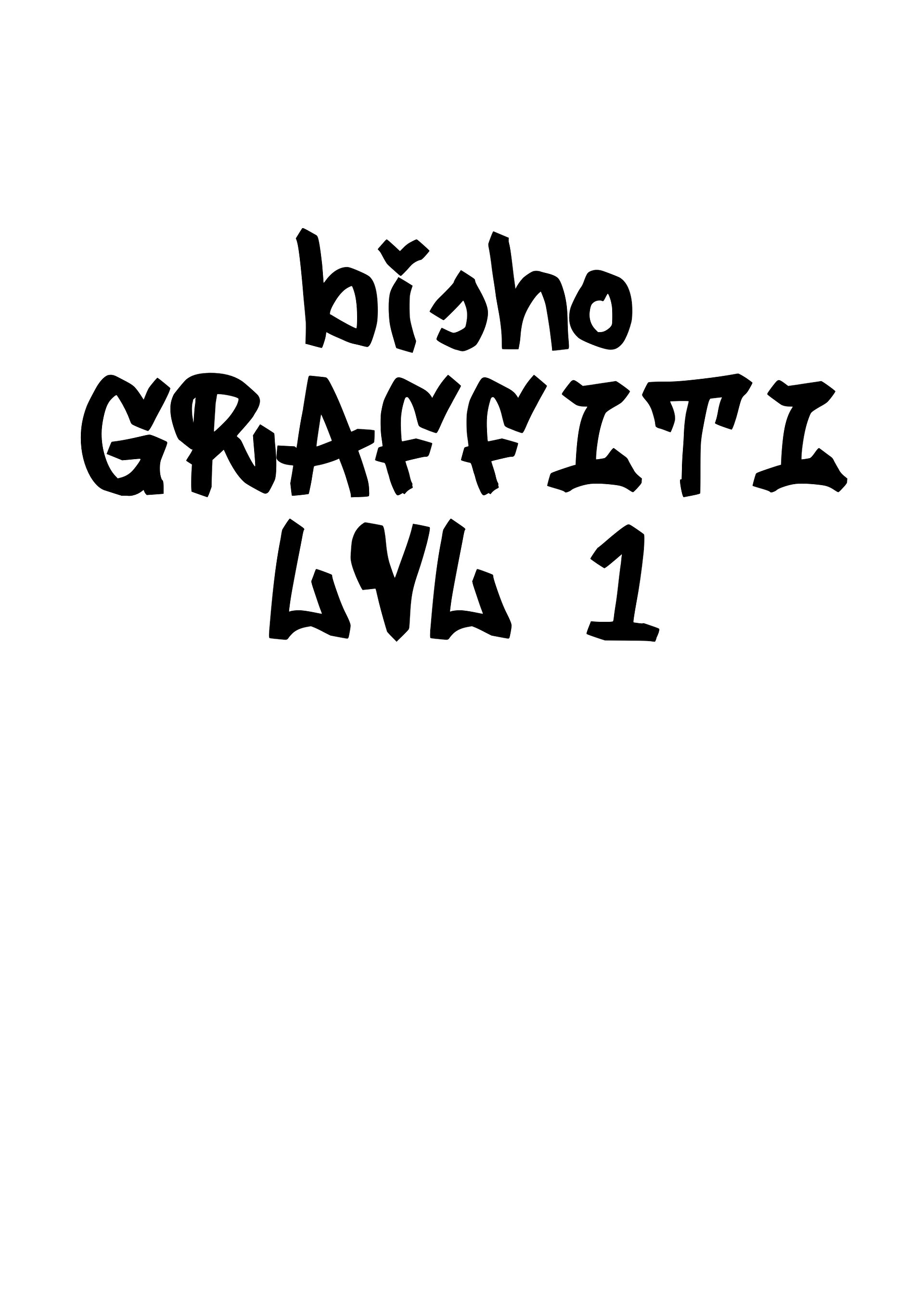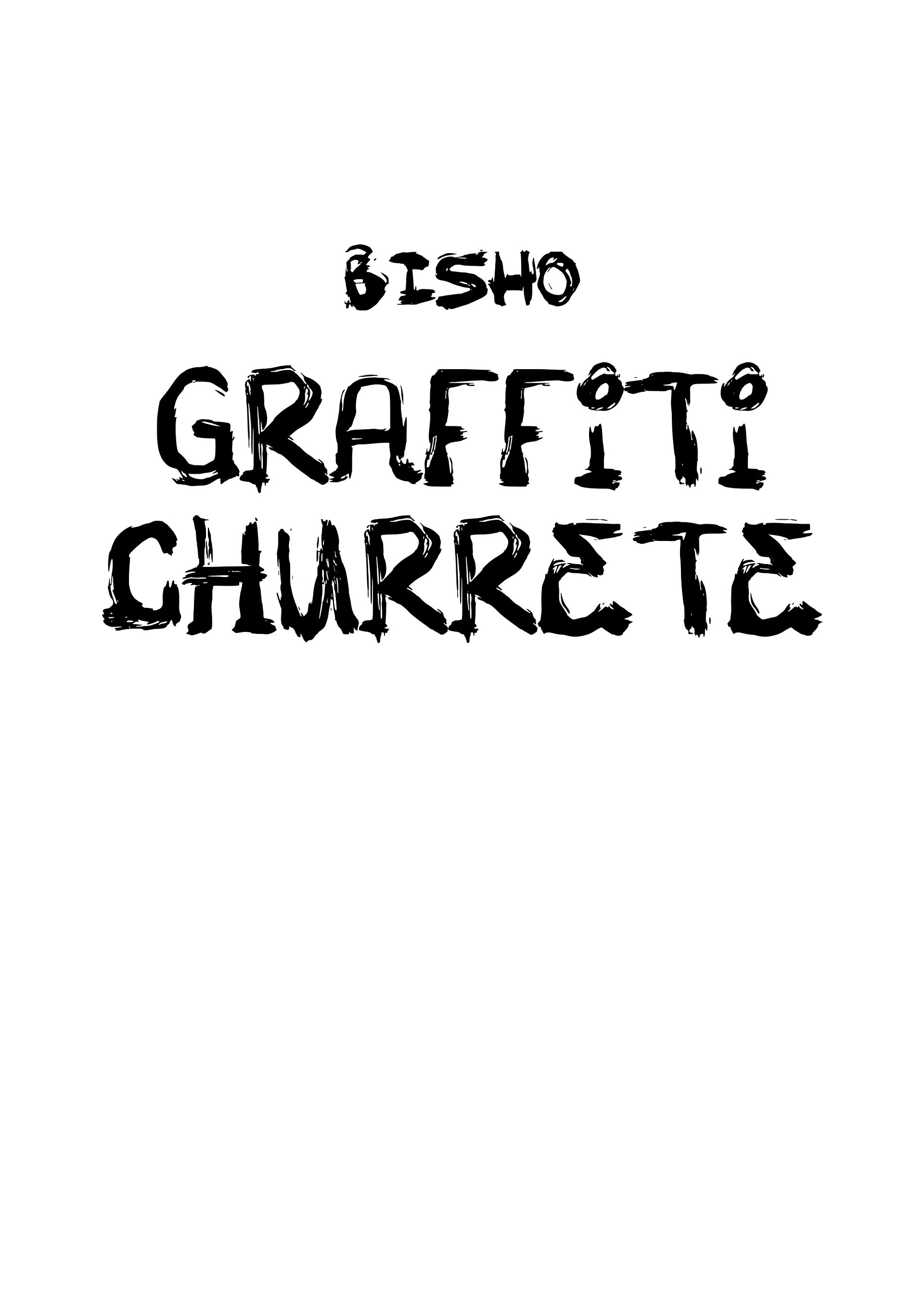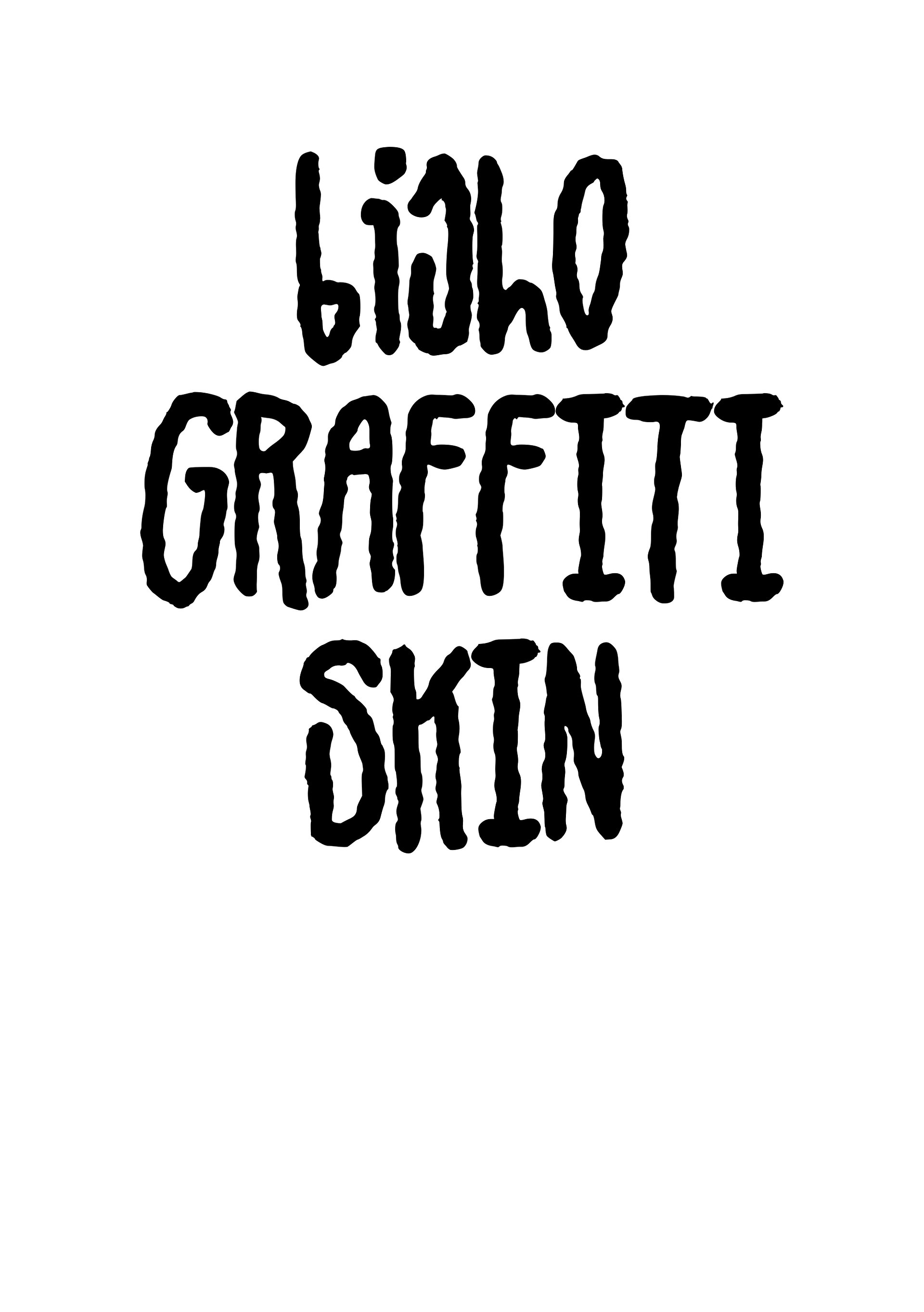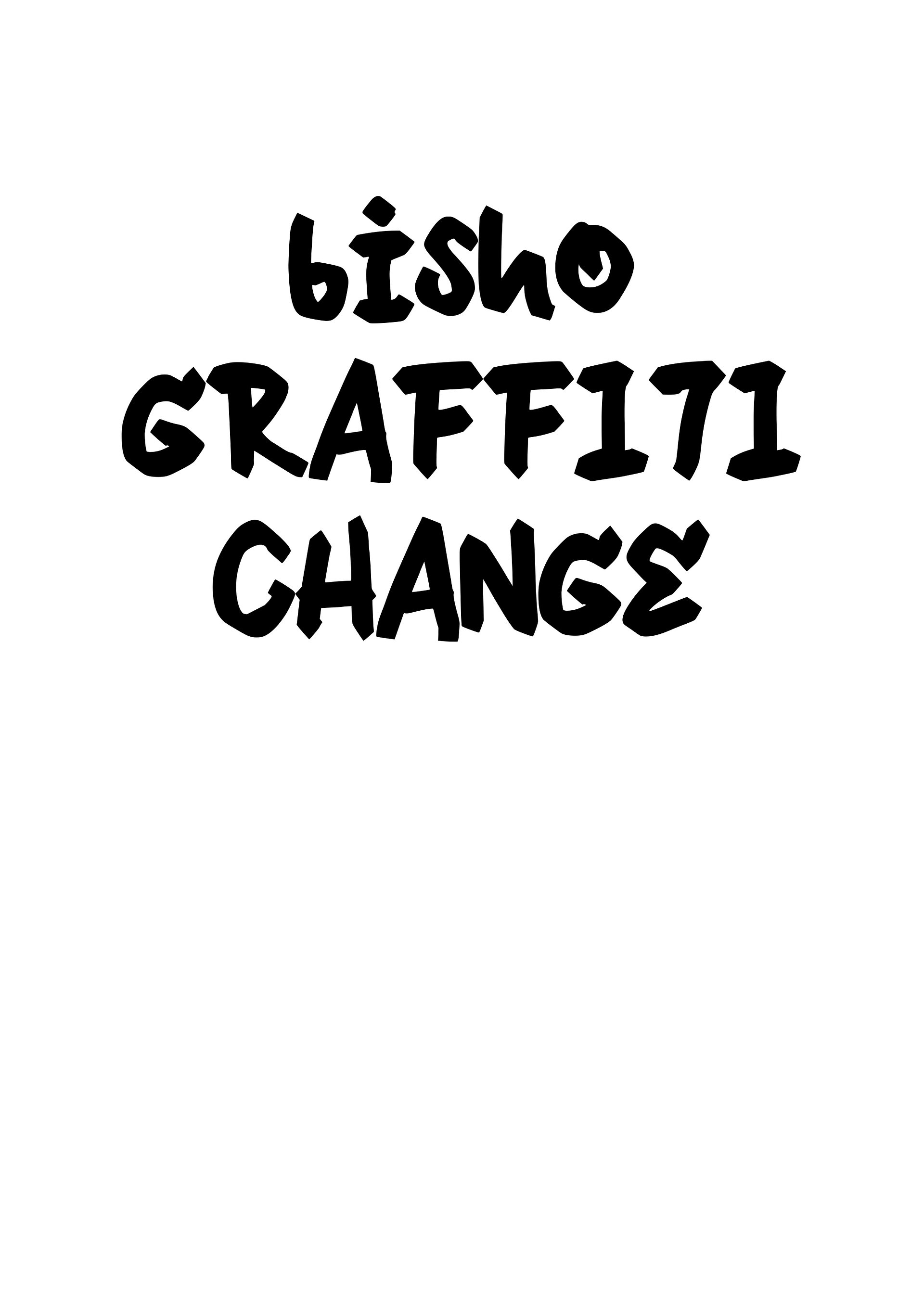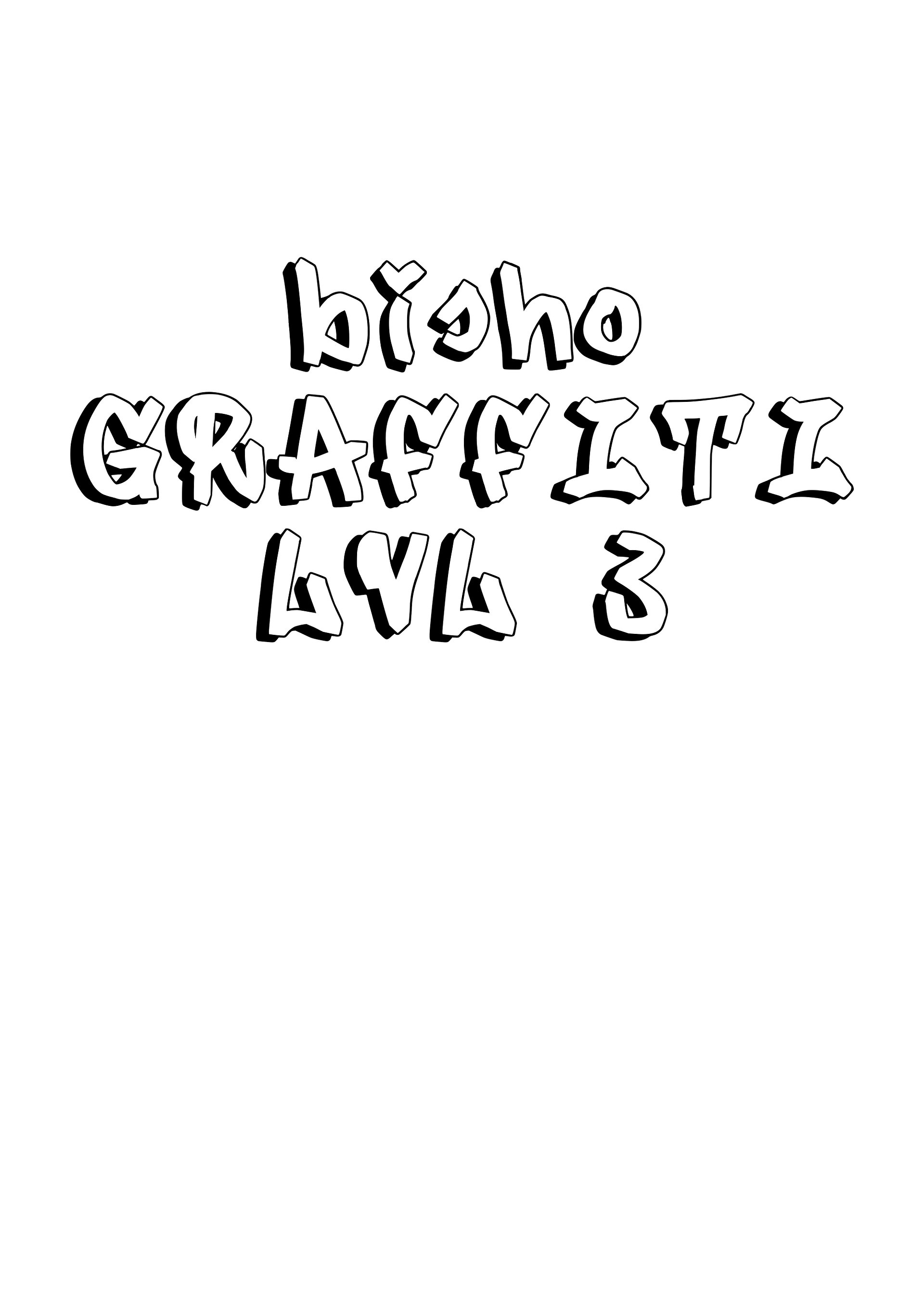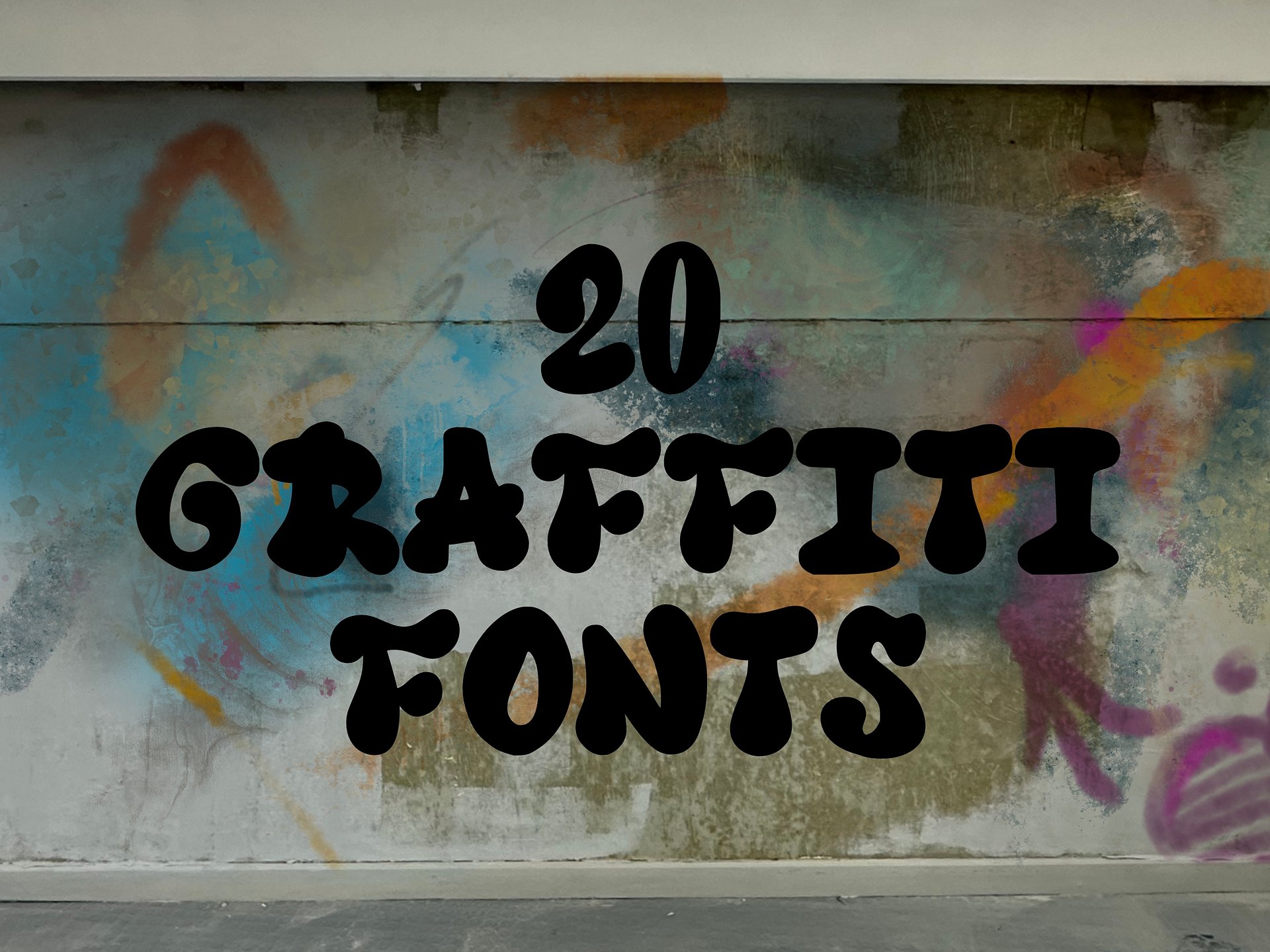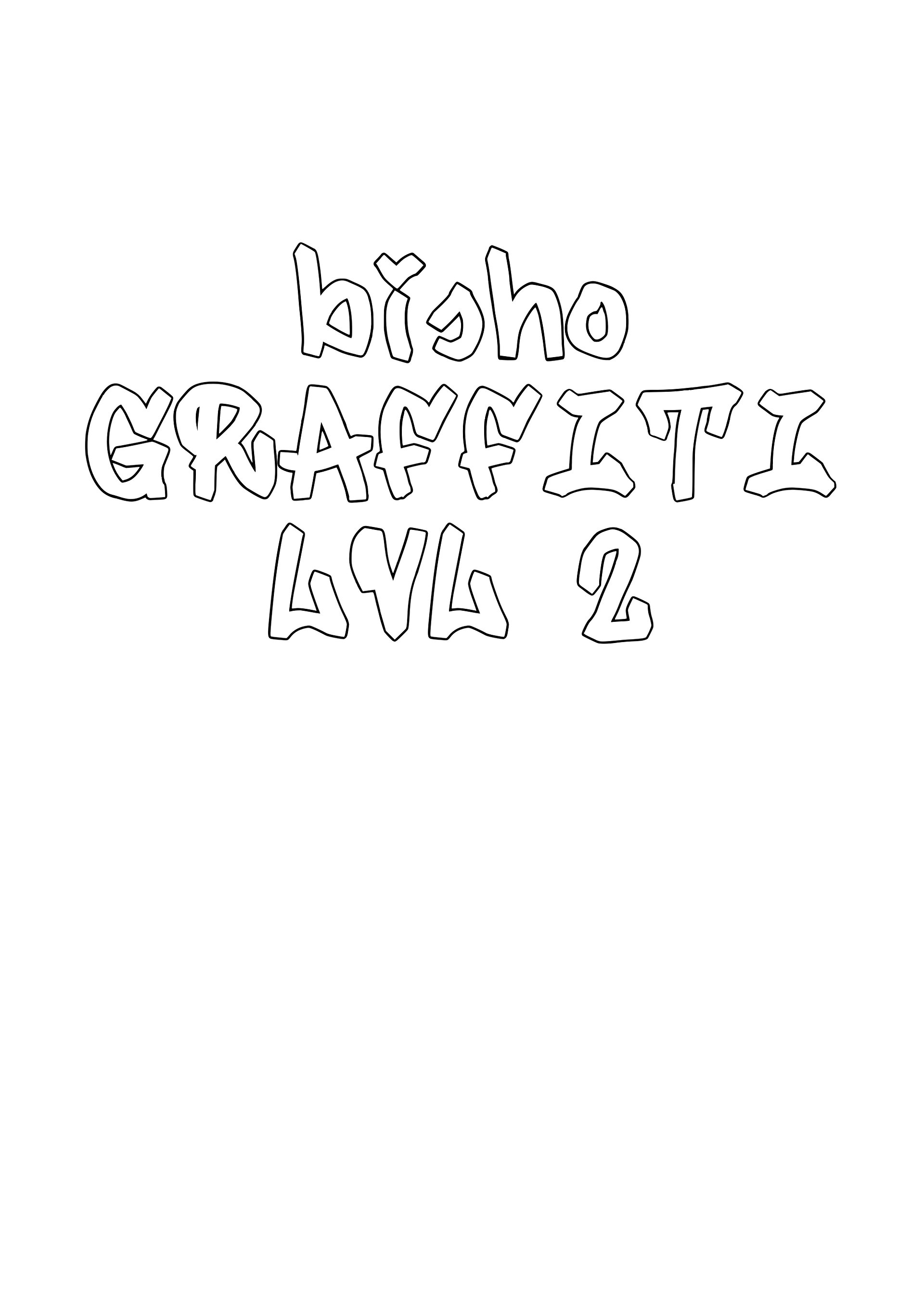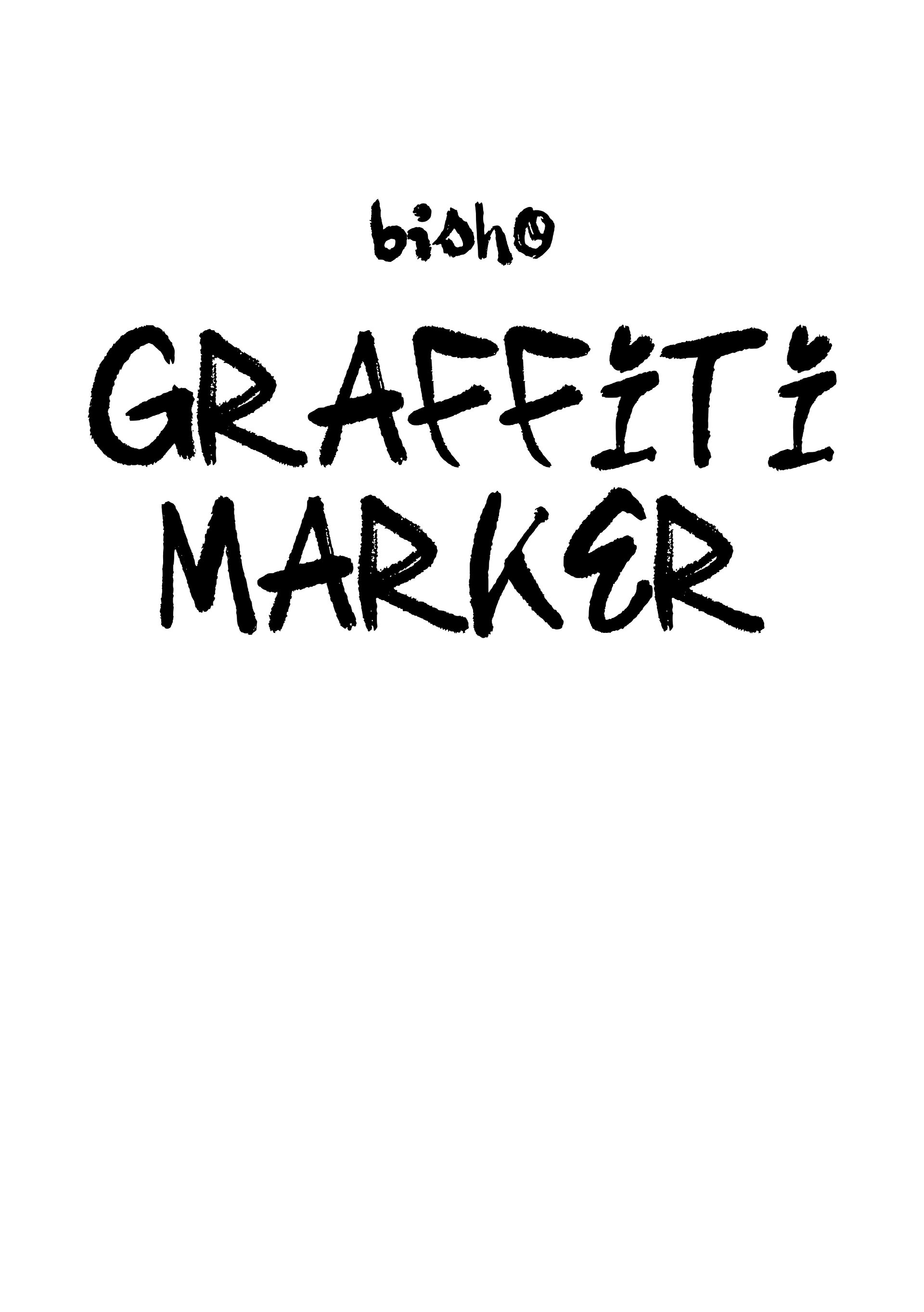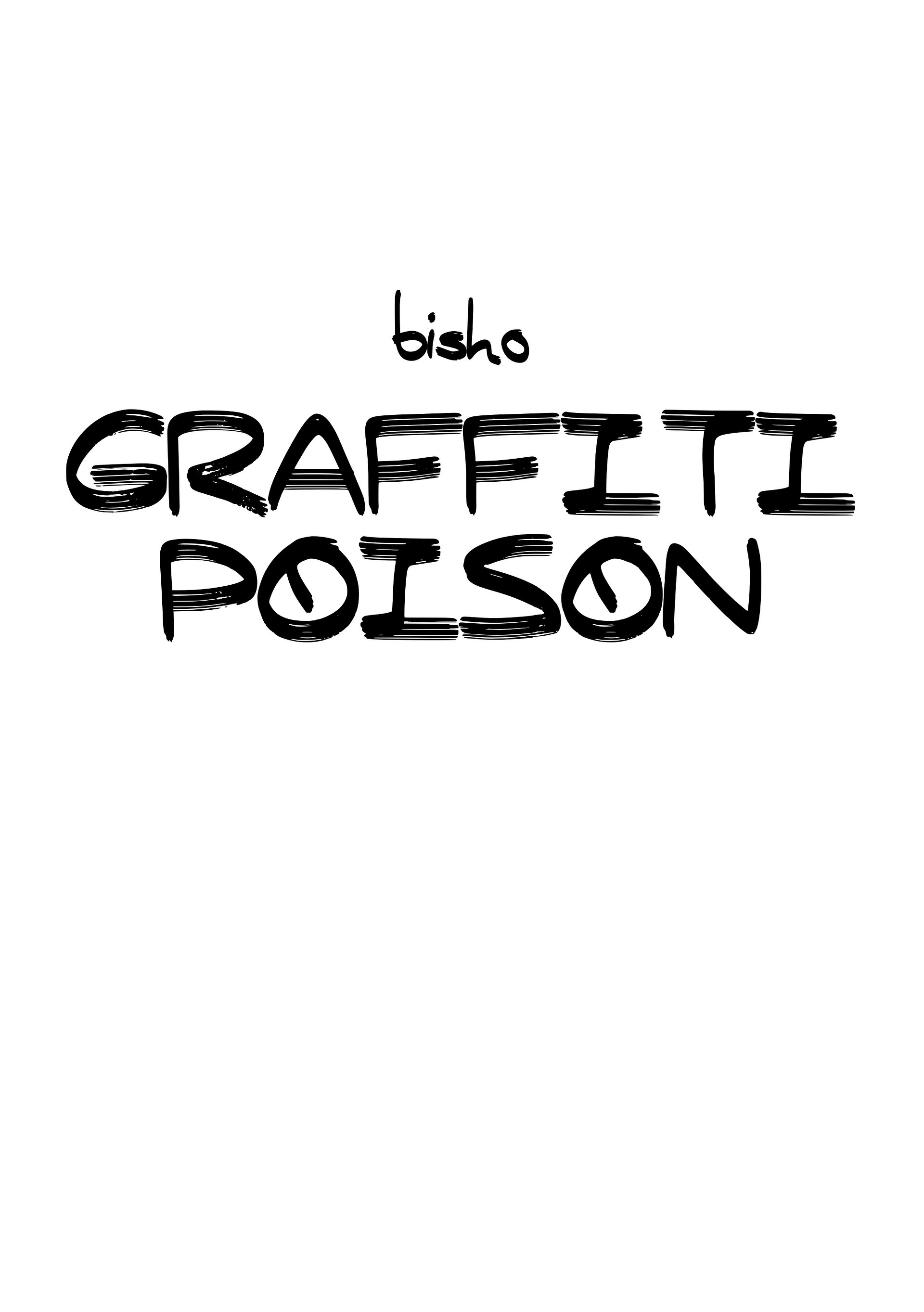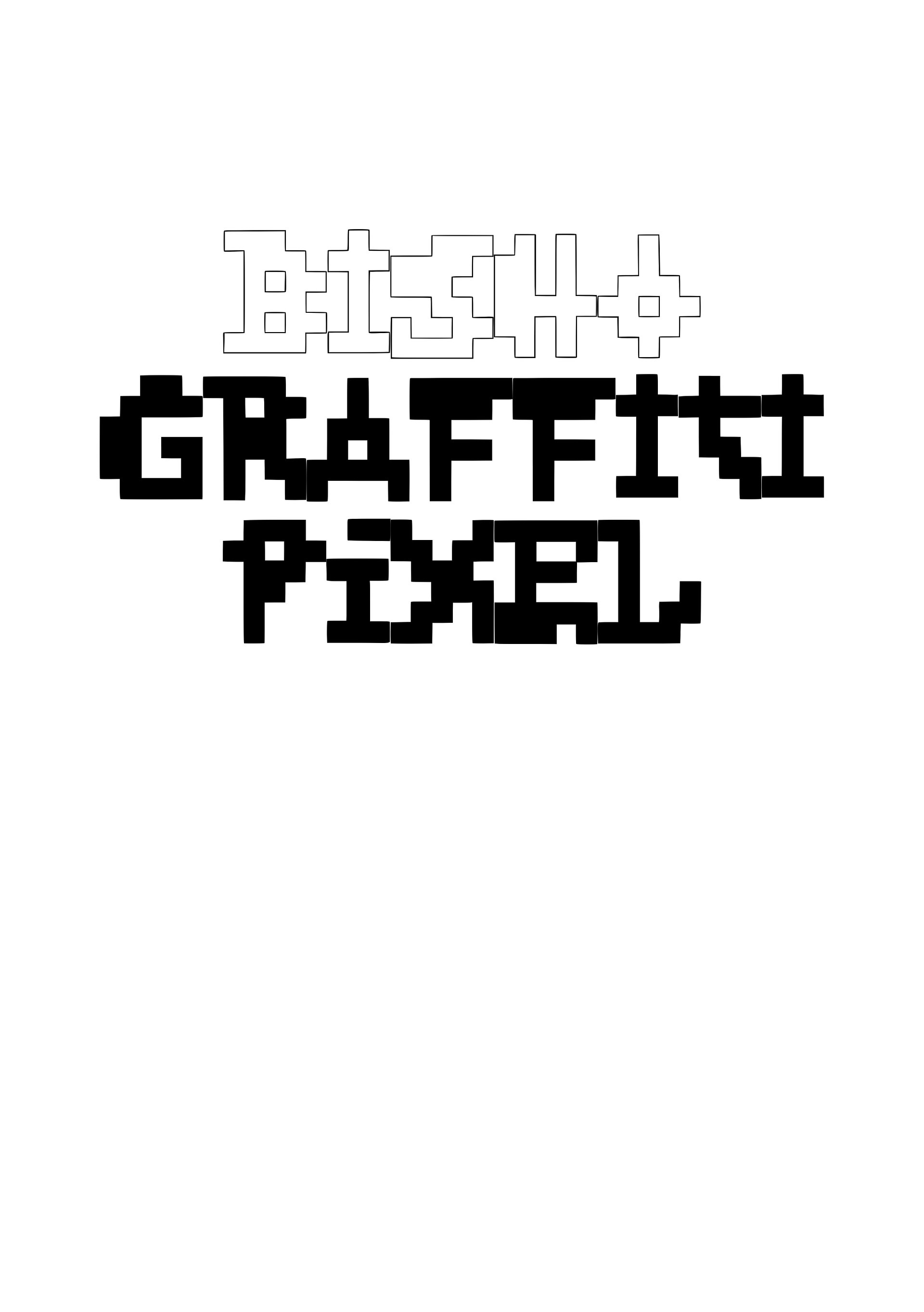
20 GRAFFITI FONTS
Here you have a nice collection of fonts and typographies of the artist and graffiti artist Bisho Sevillano, you can use these letters to write your name, to make posters, games, or whatever you like!